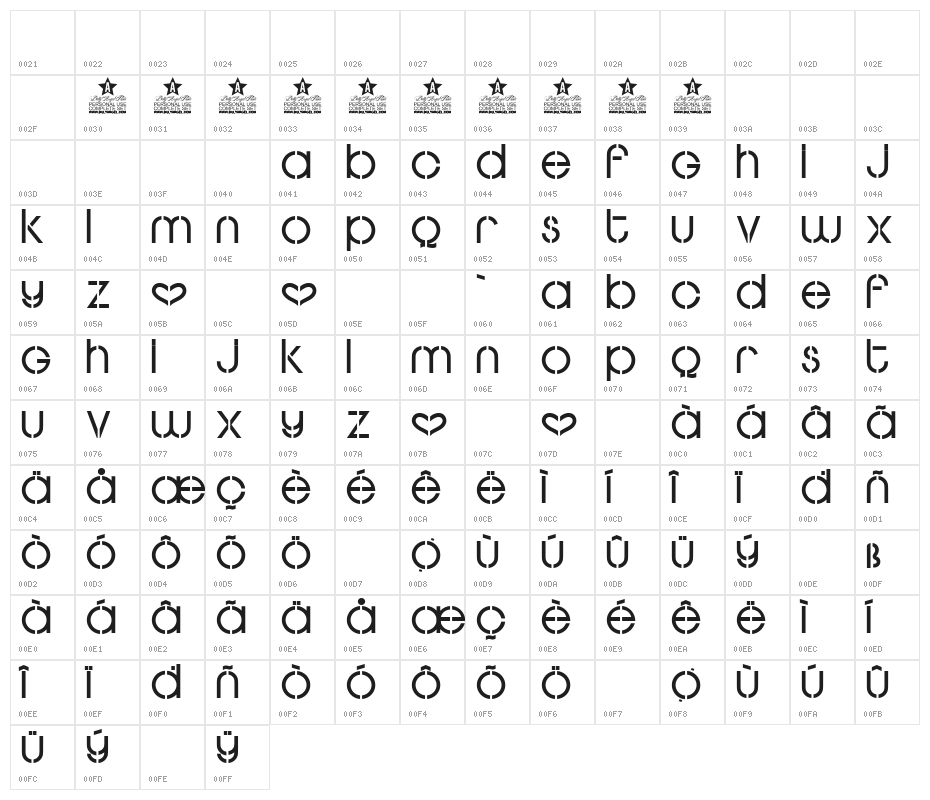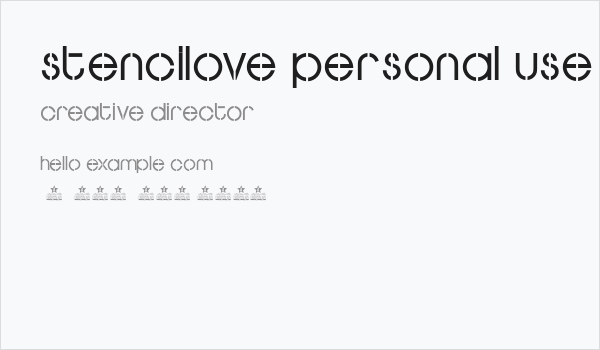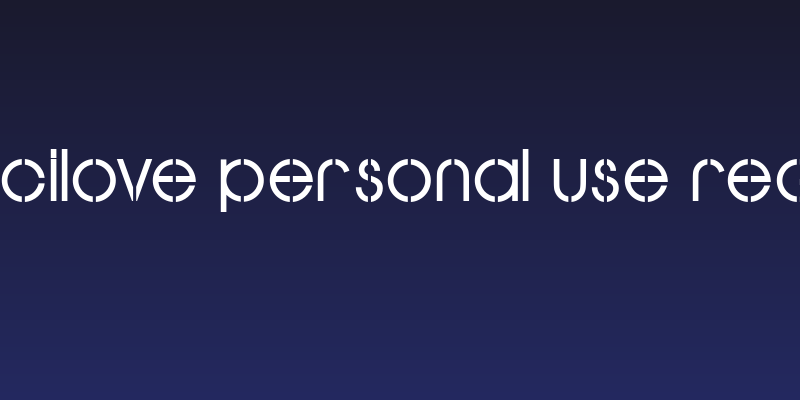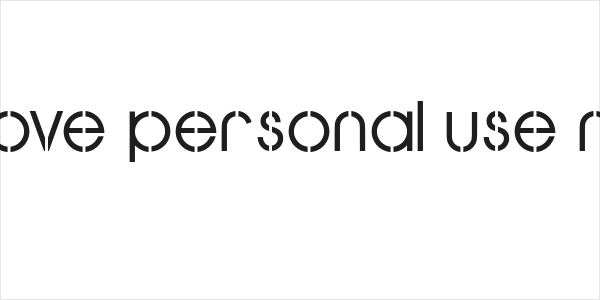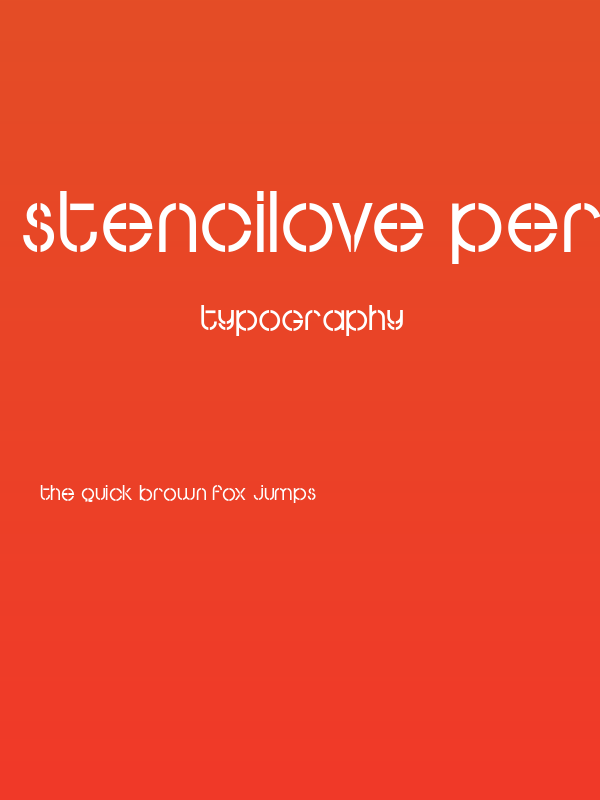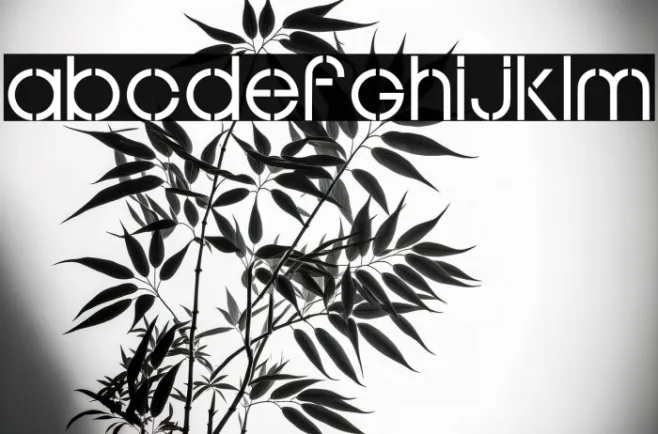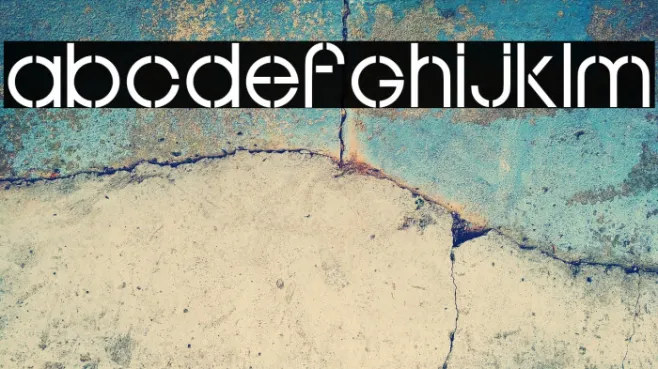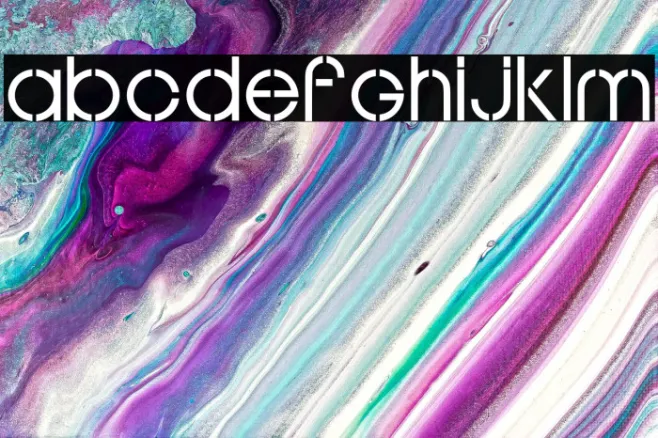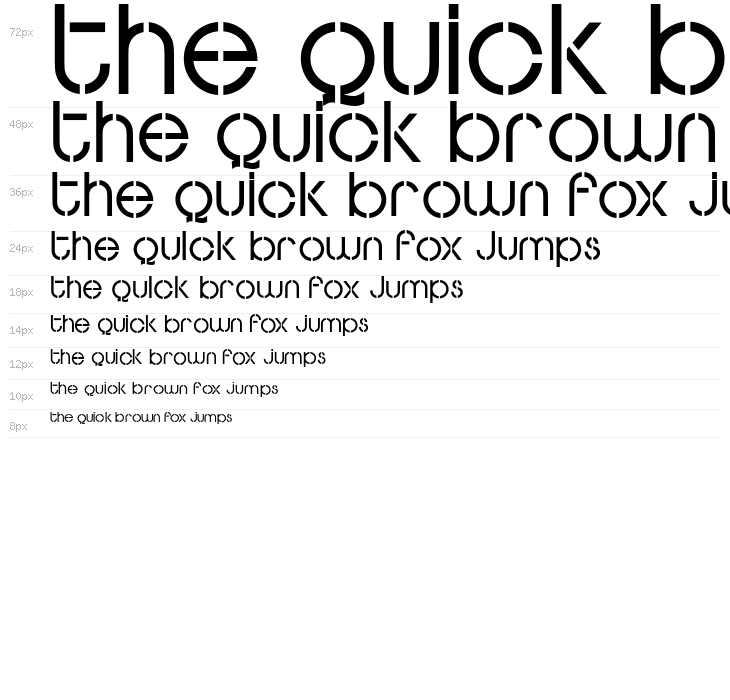
STENCILOVE PERSONAL USE Regular Font
This font features a modern, geometric design with a stencil-like appearance. Each character is crafted with precision, incorporating clean lines and circular cutouts that create a distinct, industrial feel. The uppercase and lowercase letters maintain a consistent style, emphasizing uniformity and clarity. The font's unique structure makes it stand out, with its bold, angular shapes and open spaces that enhance readability while adding an artistic touch. The design is both functional and visually striking, making it suitable for a variety of creative applications.
| Proposed Projects | Ideal for branding, posters, signage, and any project requiring a modern, industrial aesthetic. |